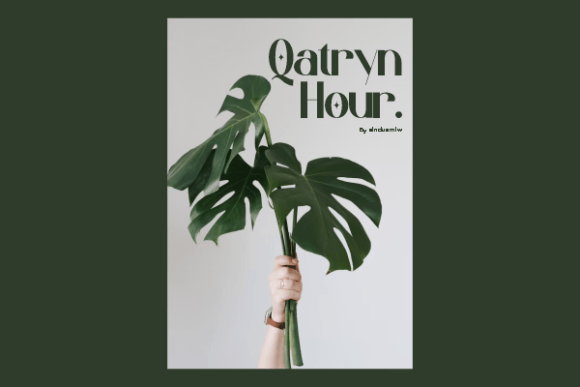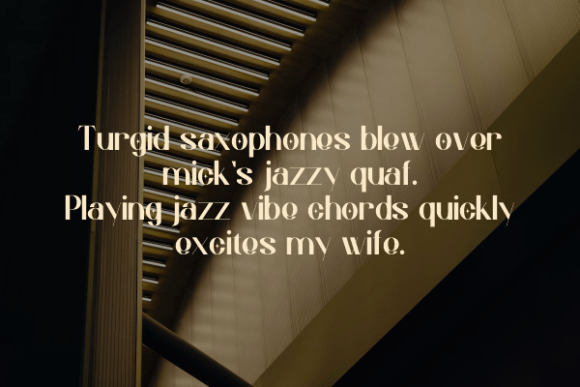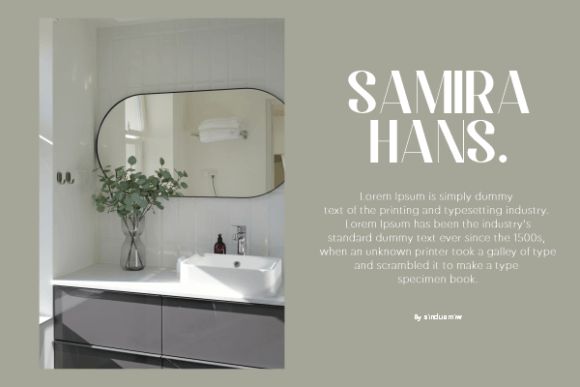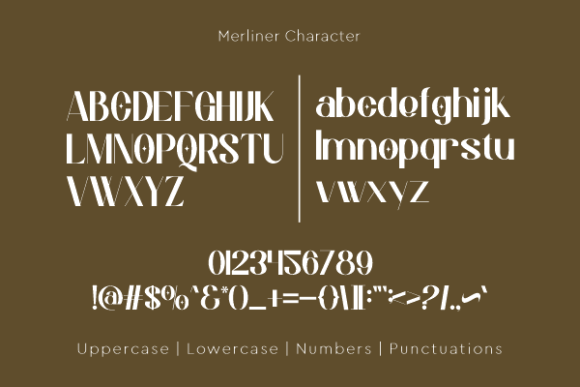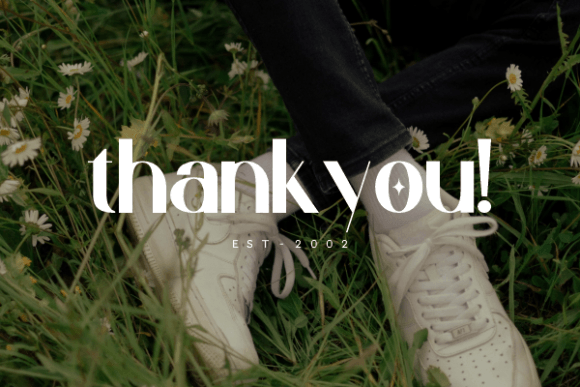
Introduction to Merliner Font
Qimberlin is an elegant and modern sans serif font.
Fall in love with its incredibly versatile style and use it to create beautiful wedding invitations, beautiful stationary art, interesting social media posts, and more .
Key Features of Merliner Font
Why Choose Merliner Font?
Merliner Font offers exceptional quality and versatility, making it a valuable addition to your design toolkit. Whether you’re creating for personal projects or commercial use, Merliner Font delivers professional results.